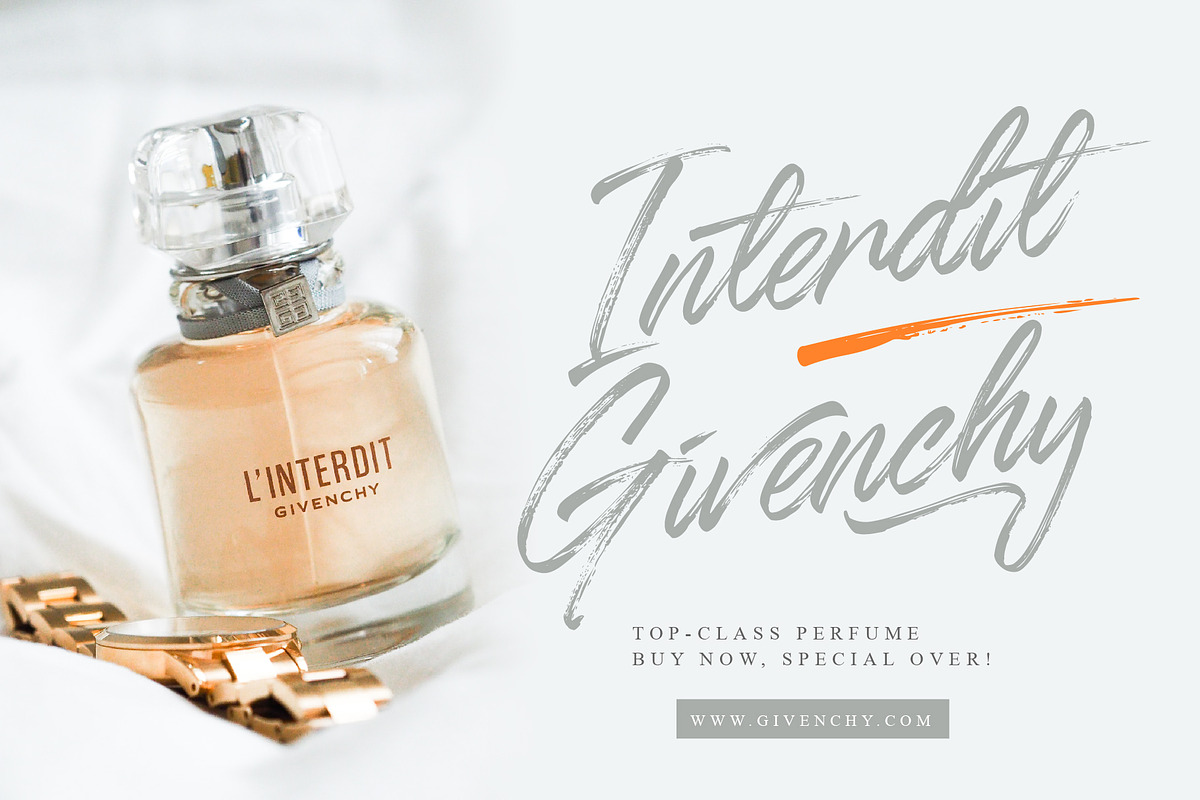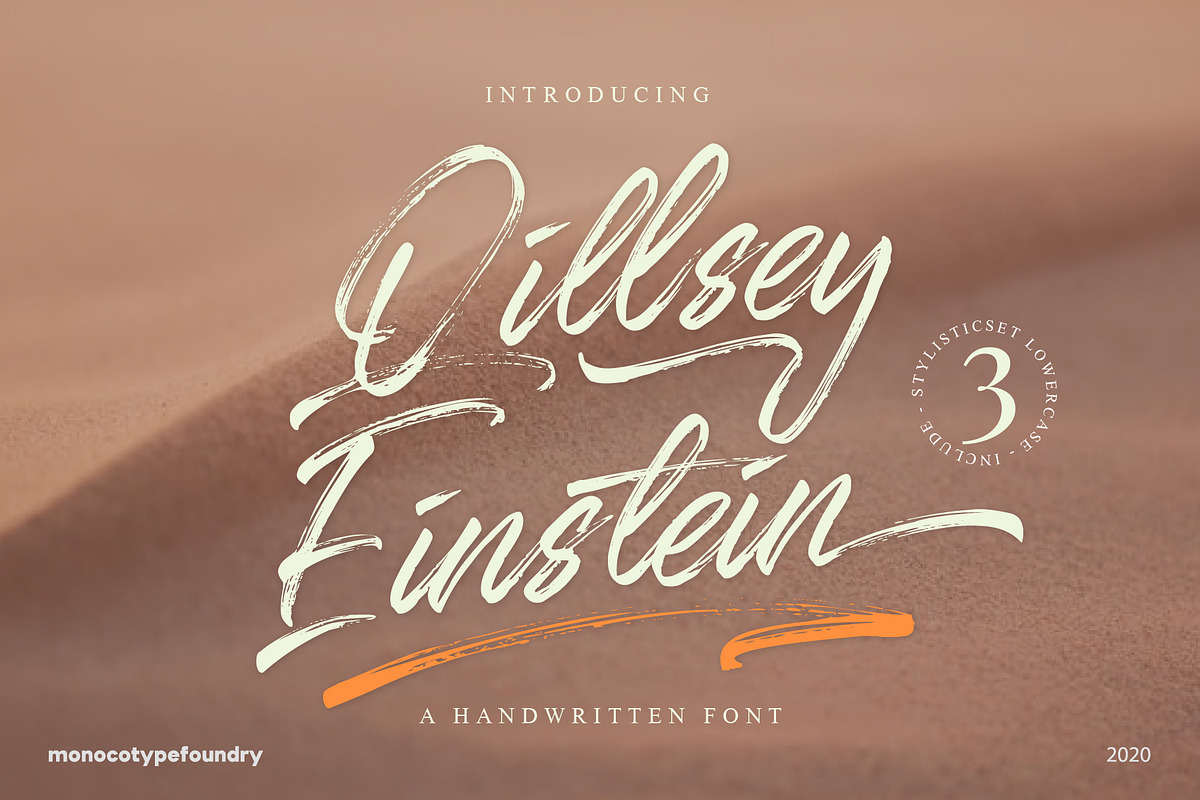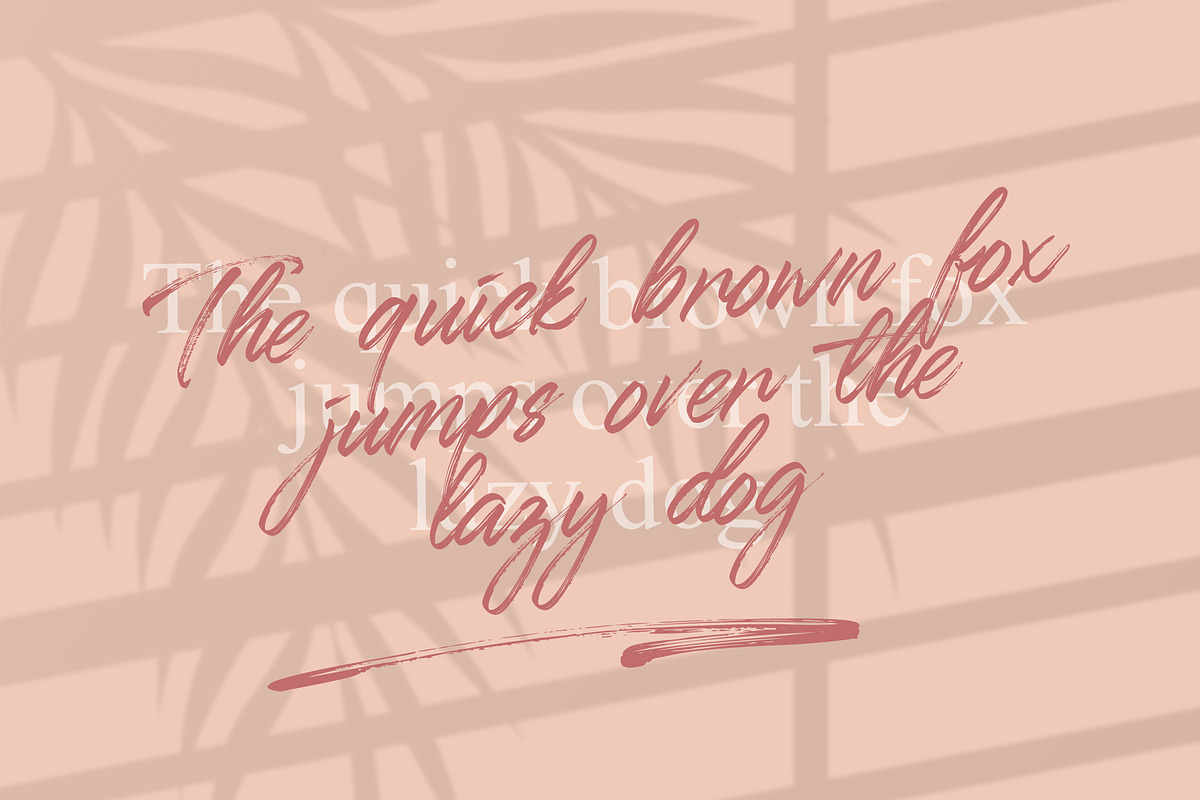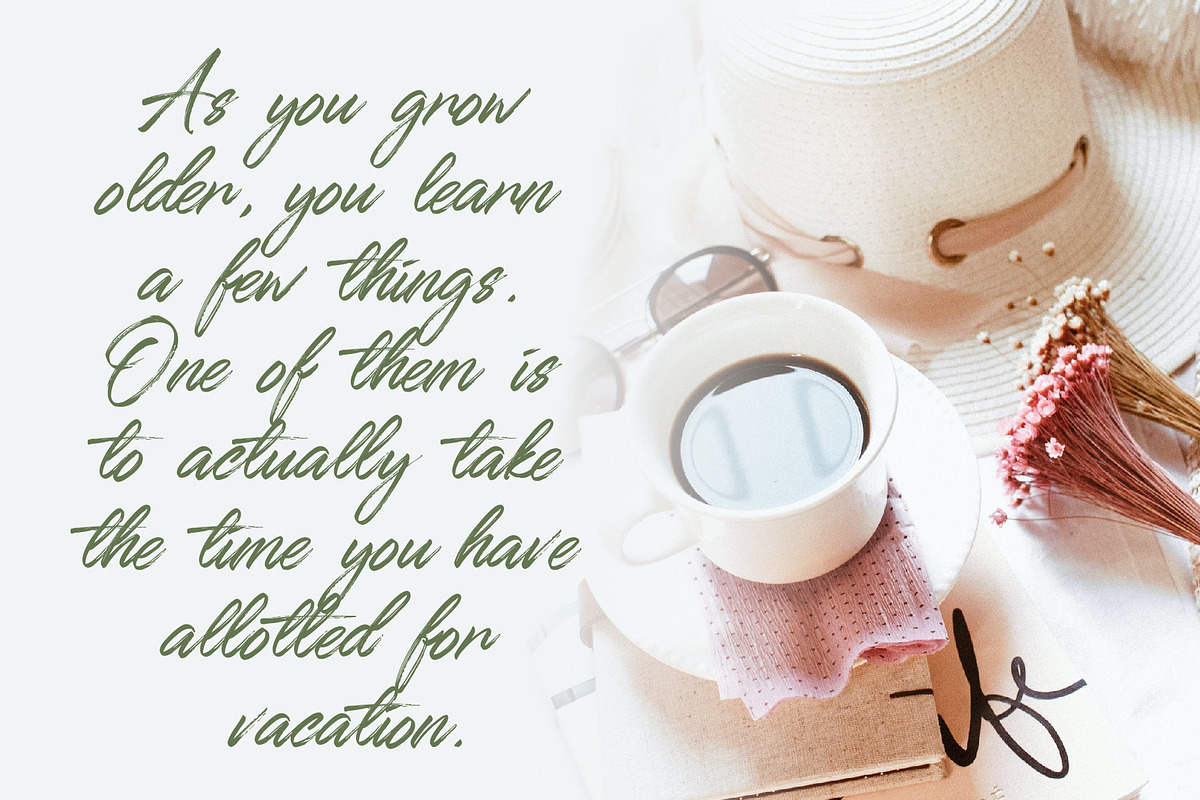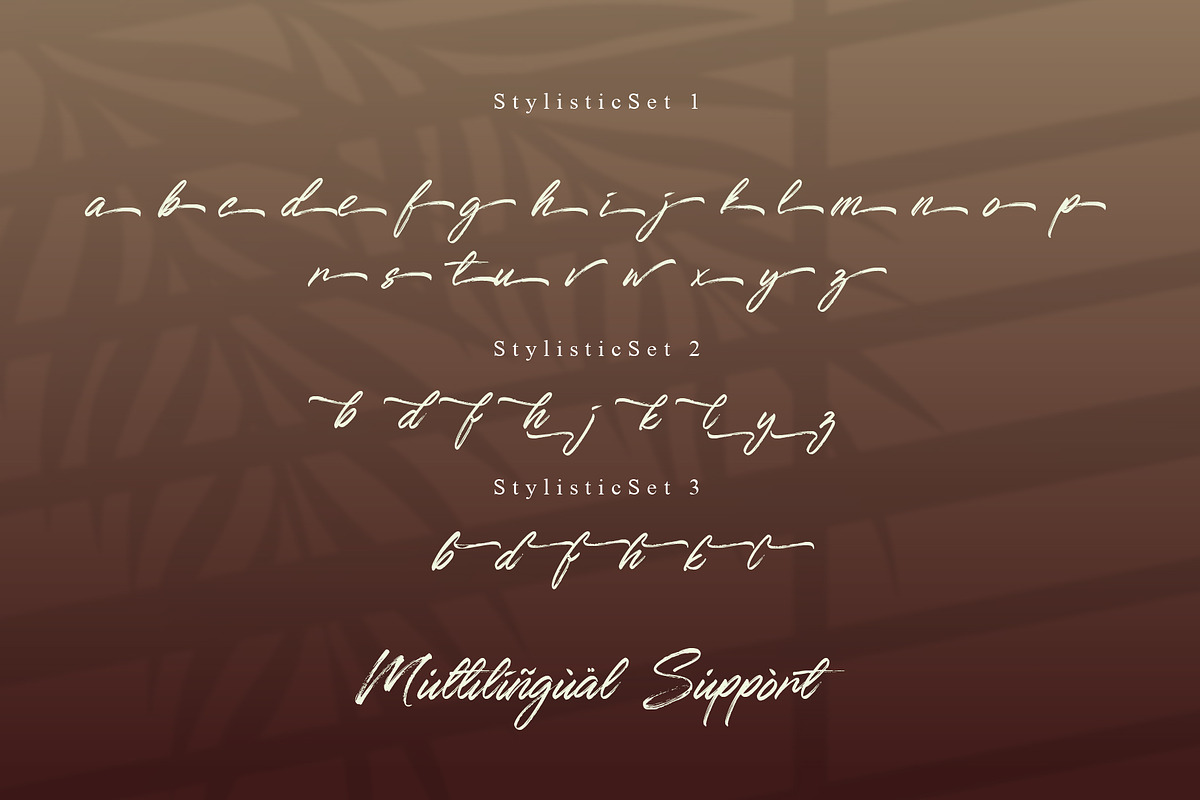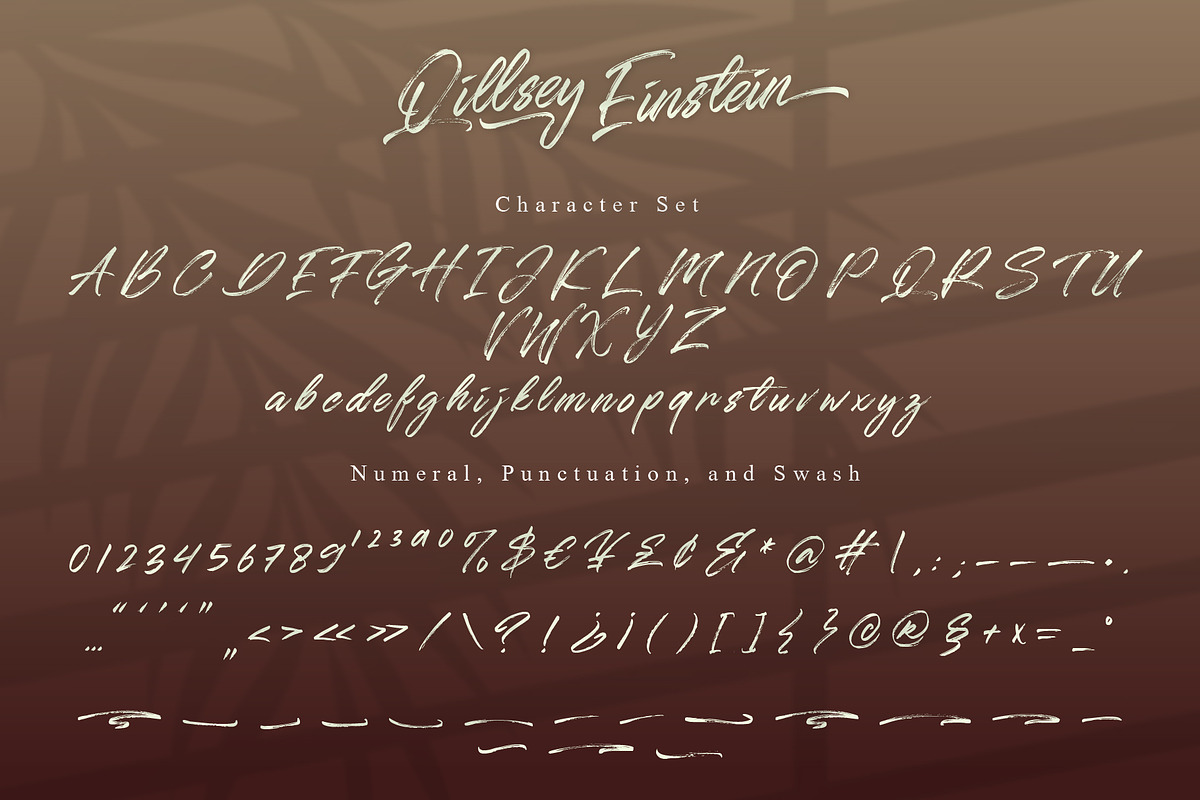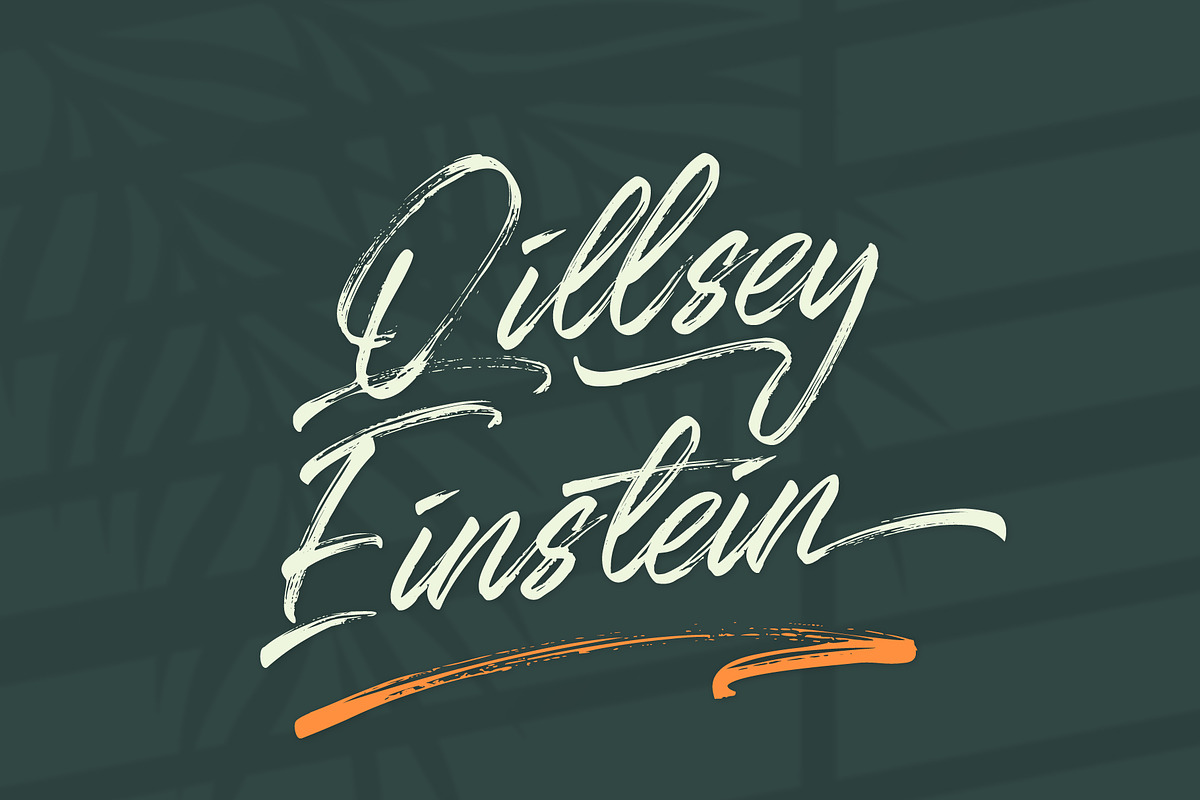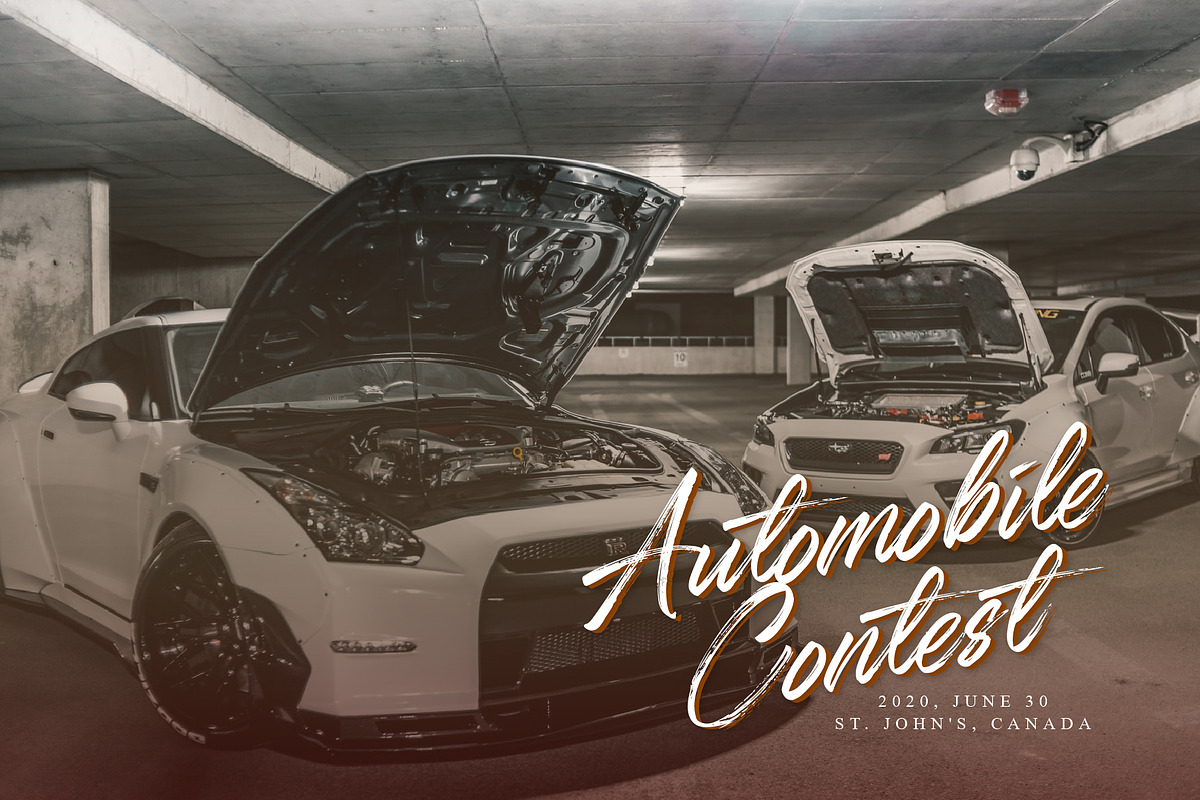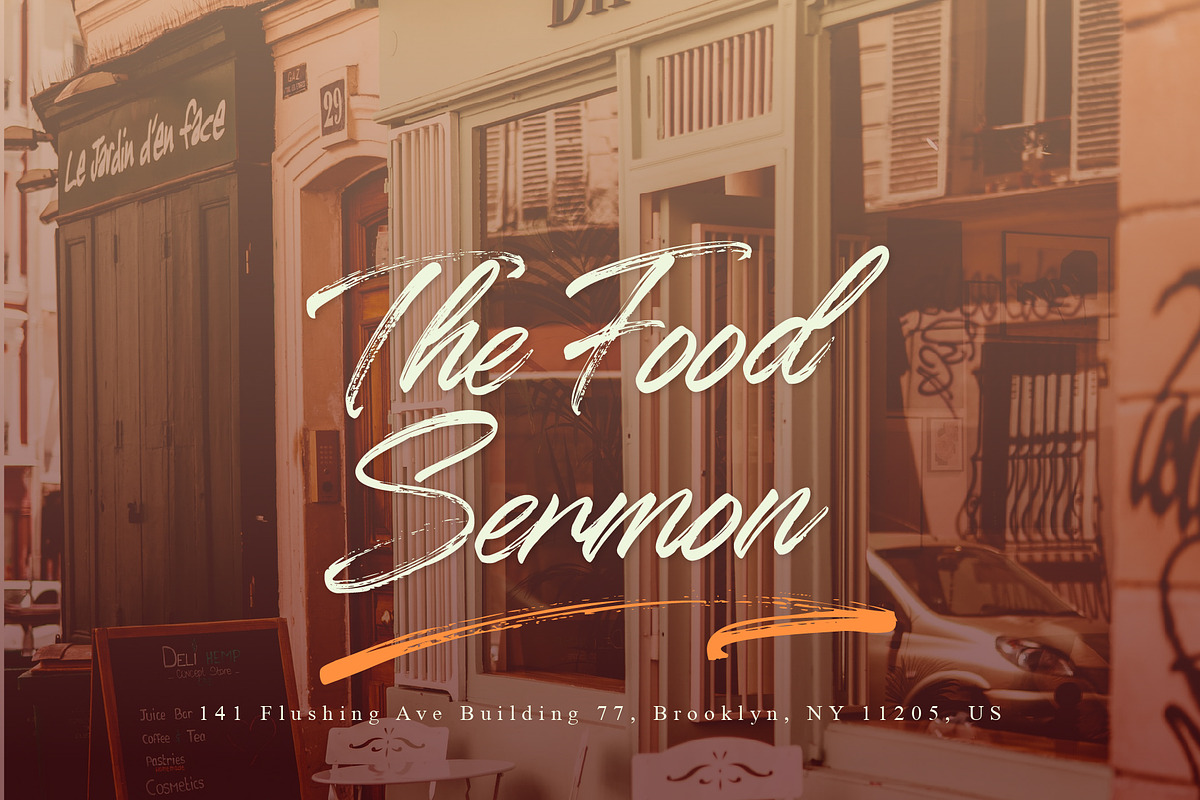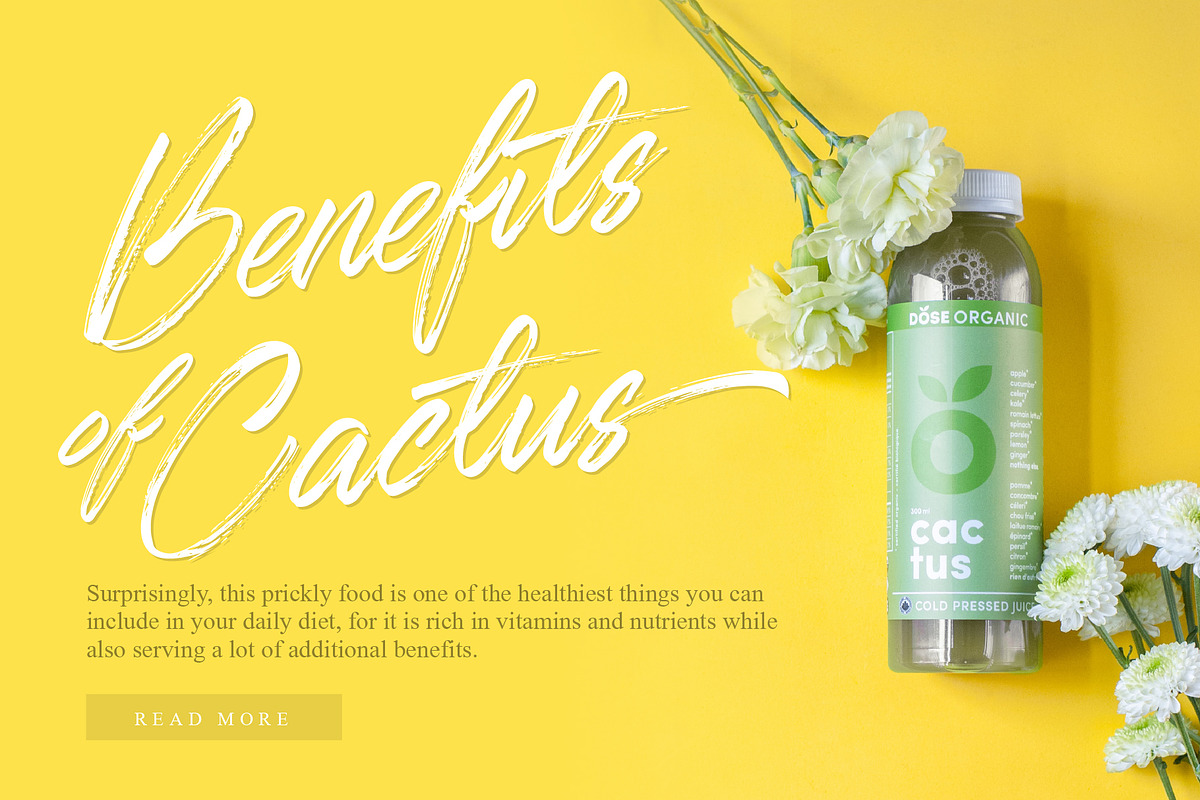
Qillsey Einstein - Handbrush
Introducing Qillsey Einstein, a type of script that has a natural scratch texture. I made Qillsey Einstein by using a Japanese calligraphy pen that makes the impression seem natural. My font is complete with 3 pieces of StylisticSet which will make the writing more beautiful and charming.
This Typeface created by our type designer: Ghazi.